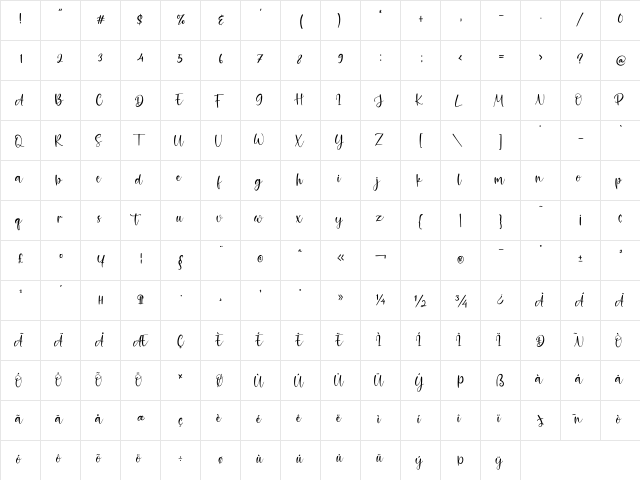
Aurella Regular
Design Context for Aurella Typeface
Aurella is a composed and adaptable typeface that performs quietly and consistently across a wide range of design contexts.